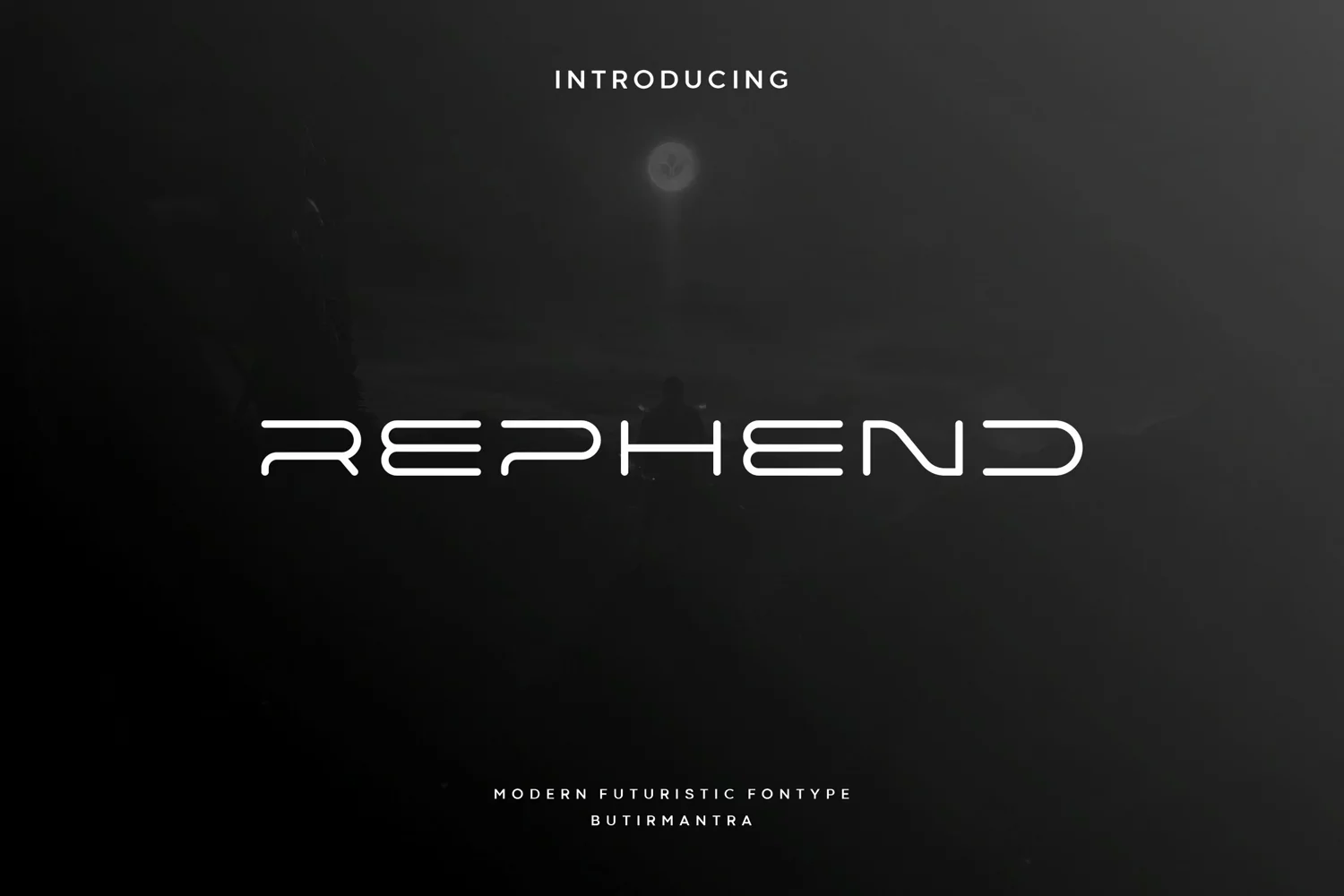
Rephend
Rephend is a cool and futuristic display font. This font would be ideal for writing web designs, business cards, or pretty much anything else that requires a unique touch.